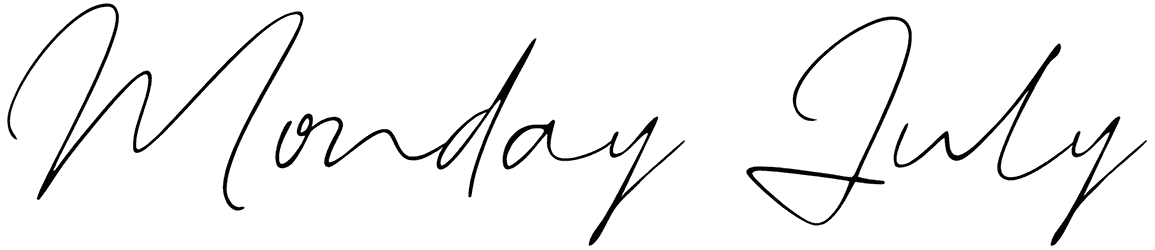
Monday July Font
Whether your project is a business card for an artist or a wedding card, this handwritten font has the potential to mesmerize you. The smooth lines of characters will reflect your special taste and make this signature font unique. Use the Monday July font for your novel idea and have a memorable presentation.